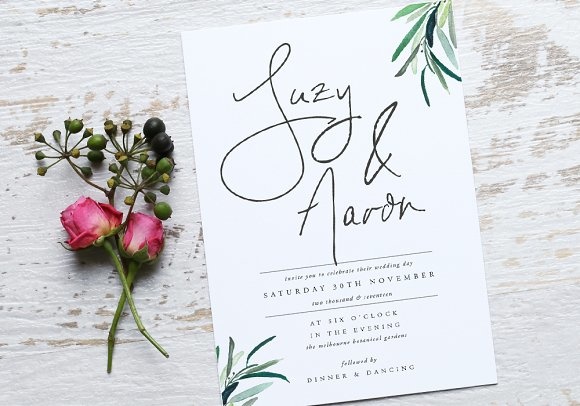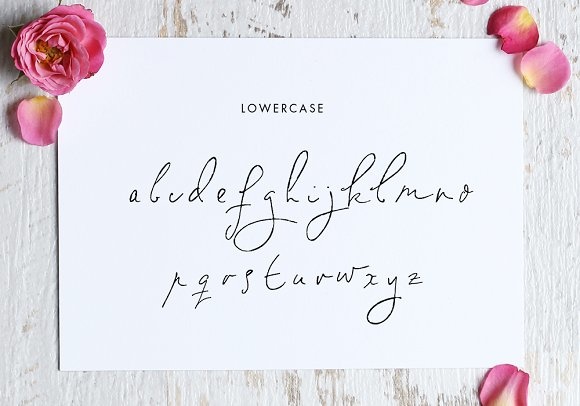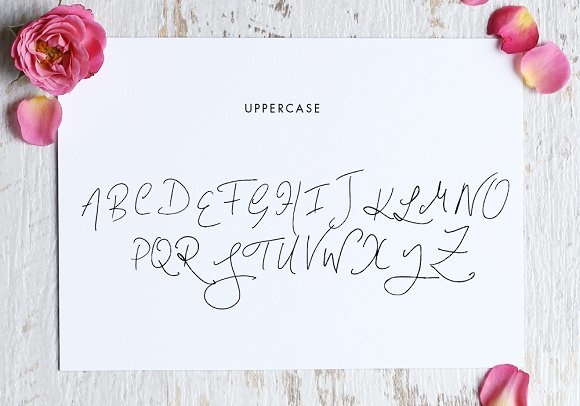
Studio Hand Font
About Studio Hand Font
Studio Hand is a beautiful, signature styled script font, ideal for use in a ton of different project types. This font is a great way to give your designs a ton of style and refined elegance.